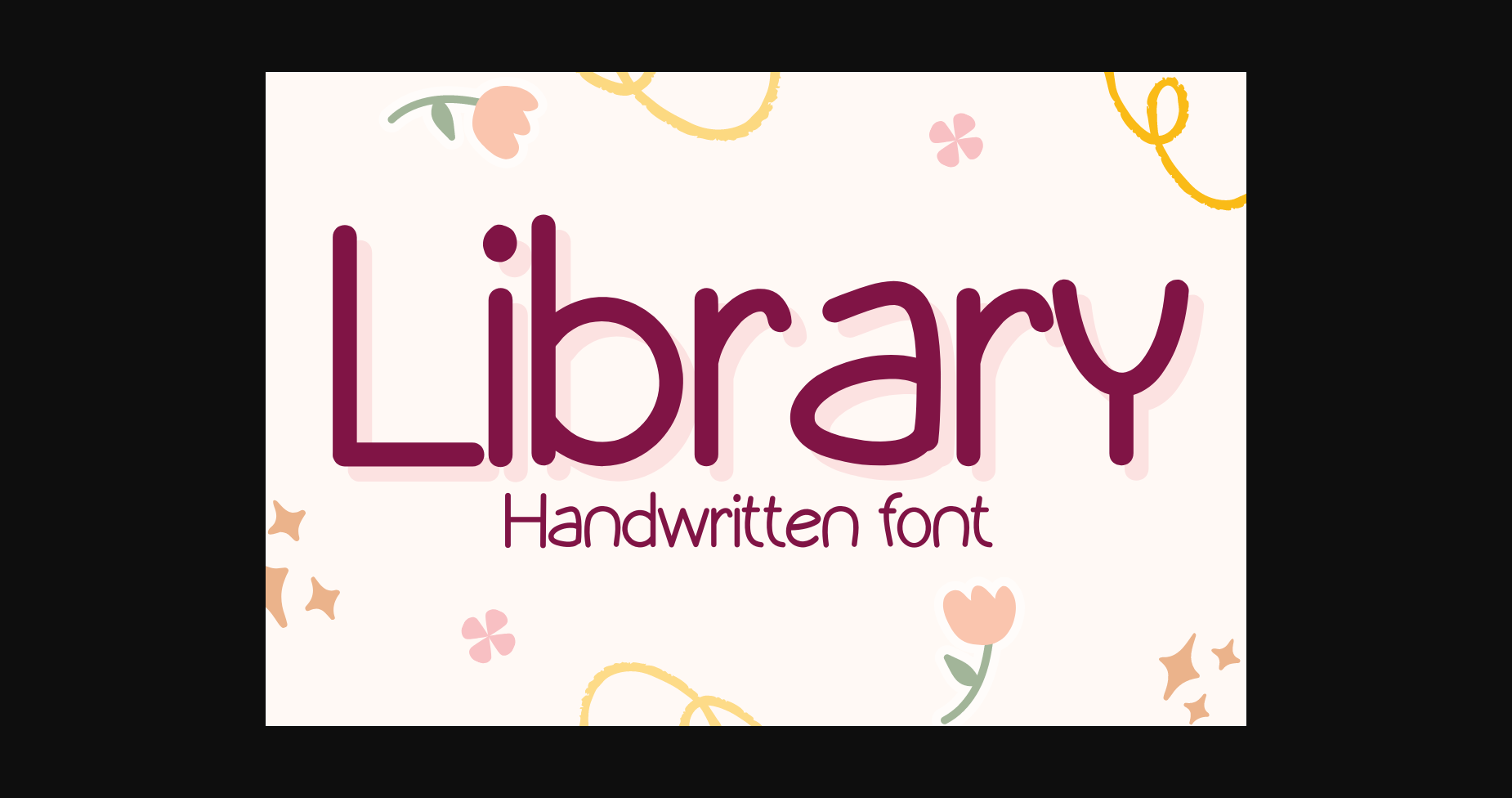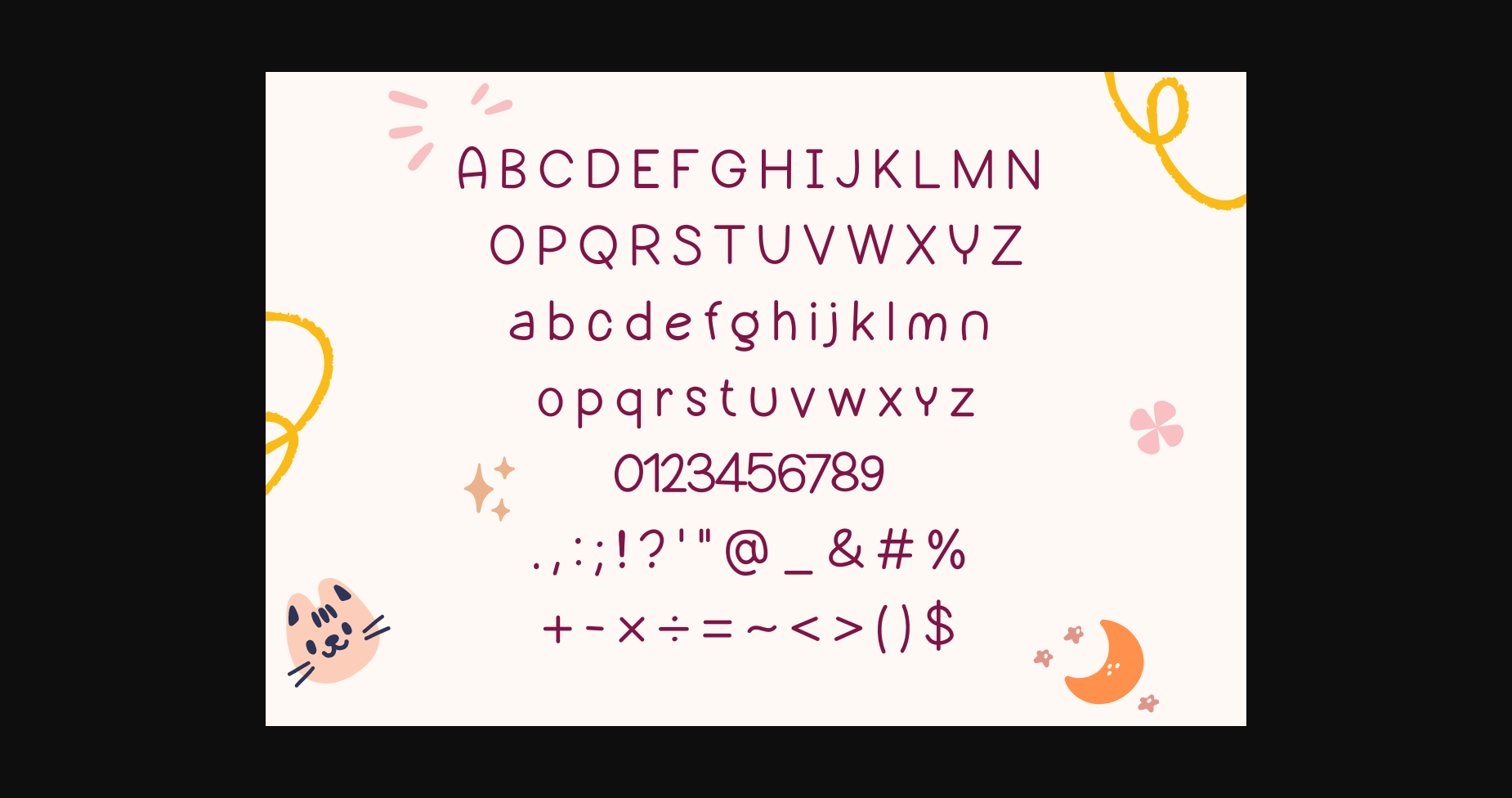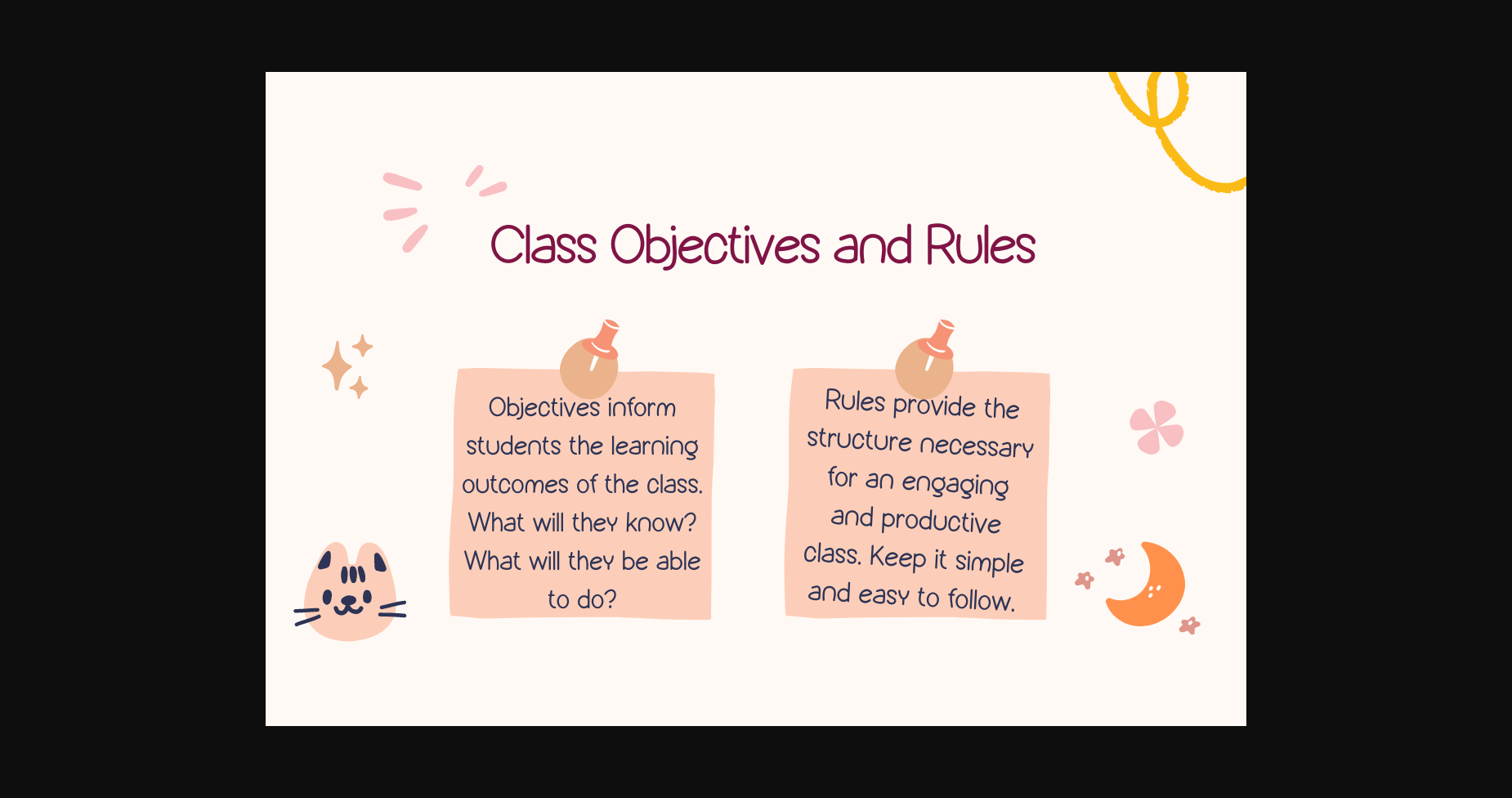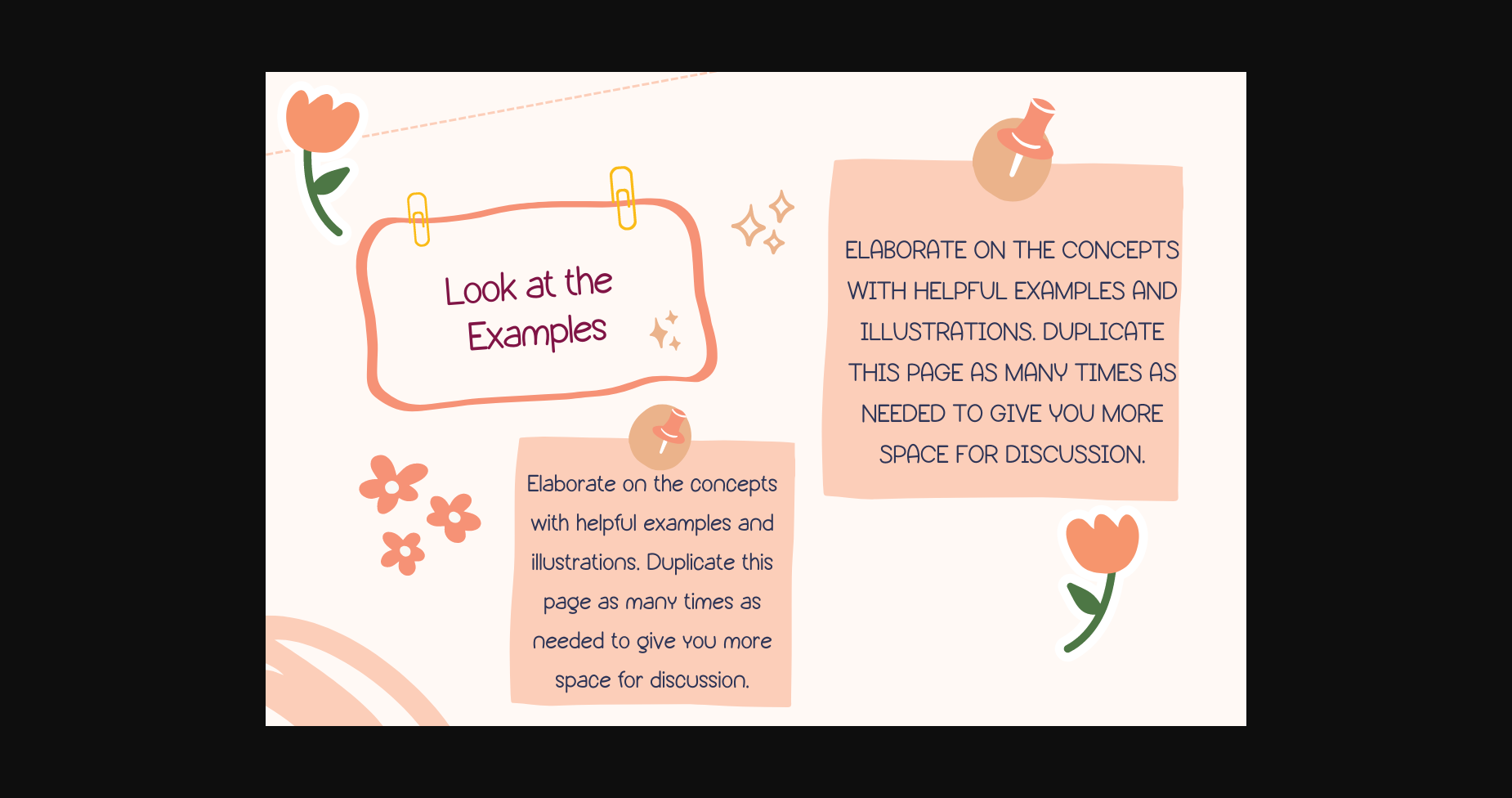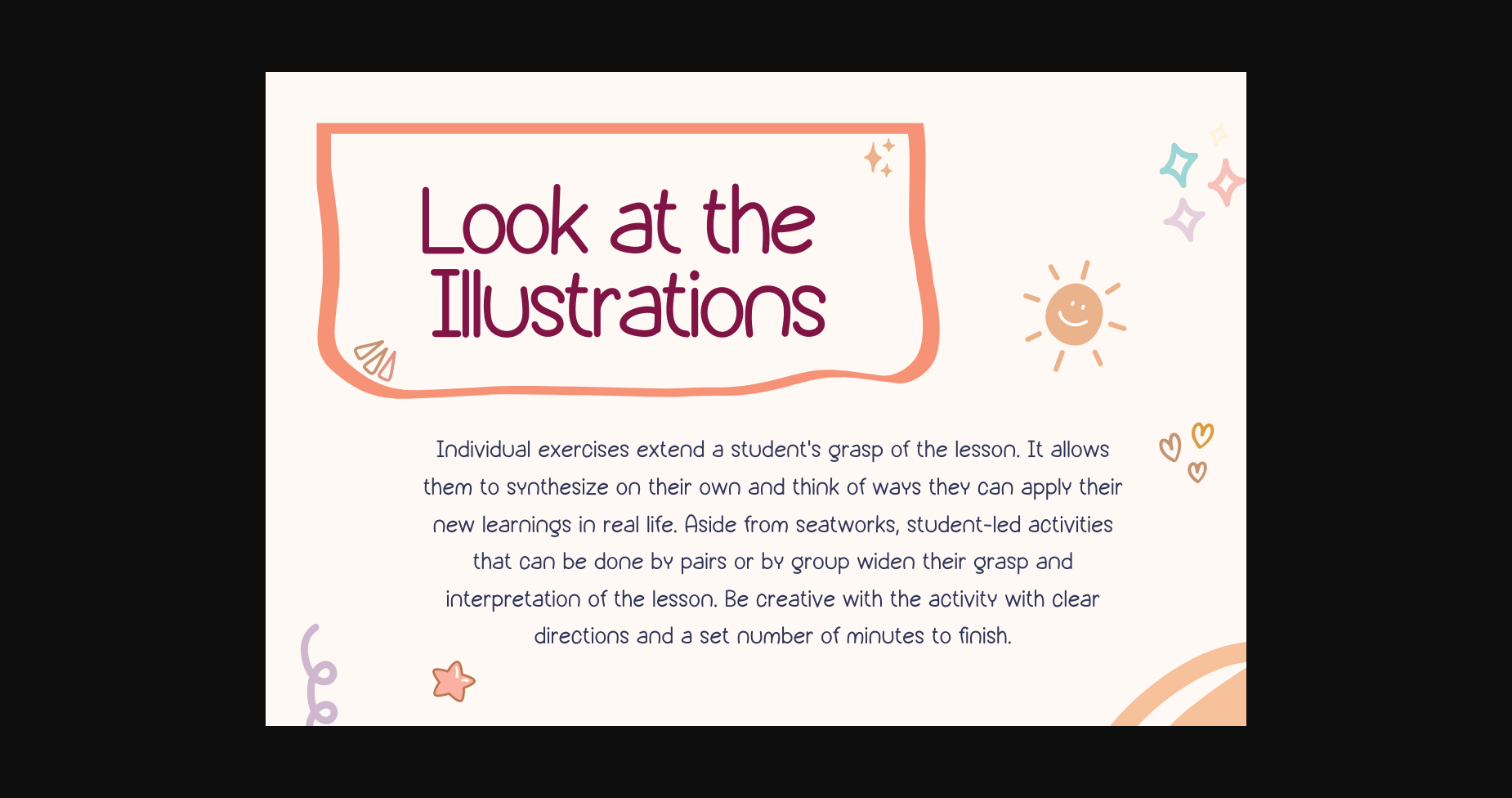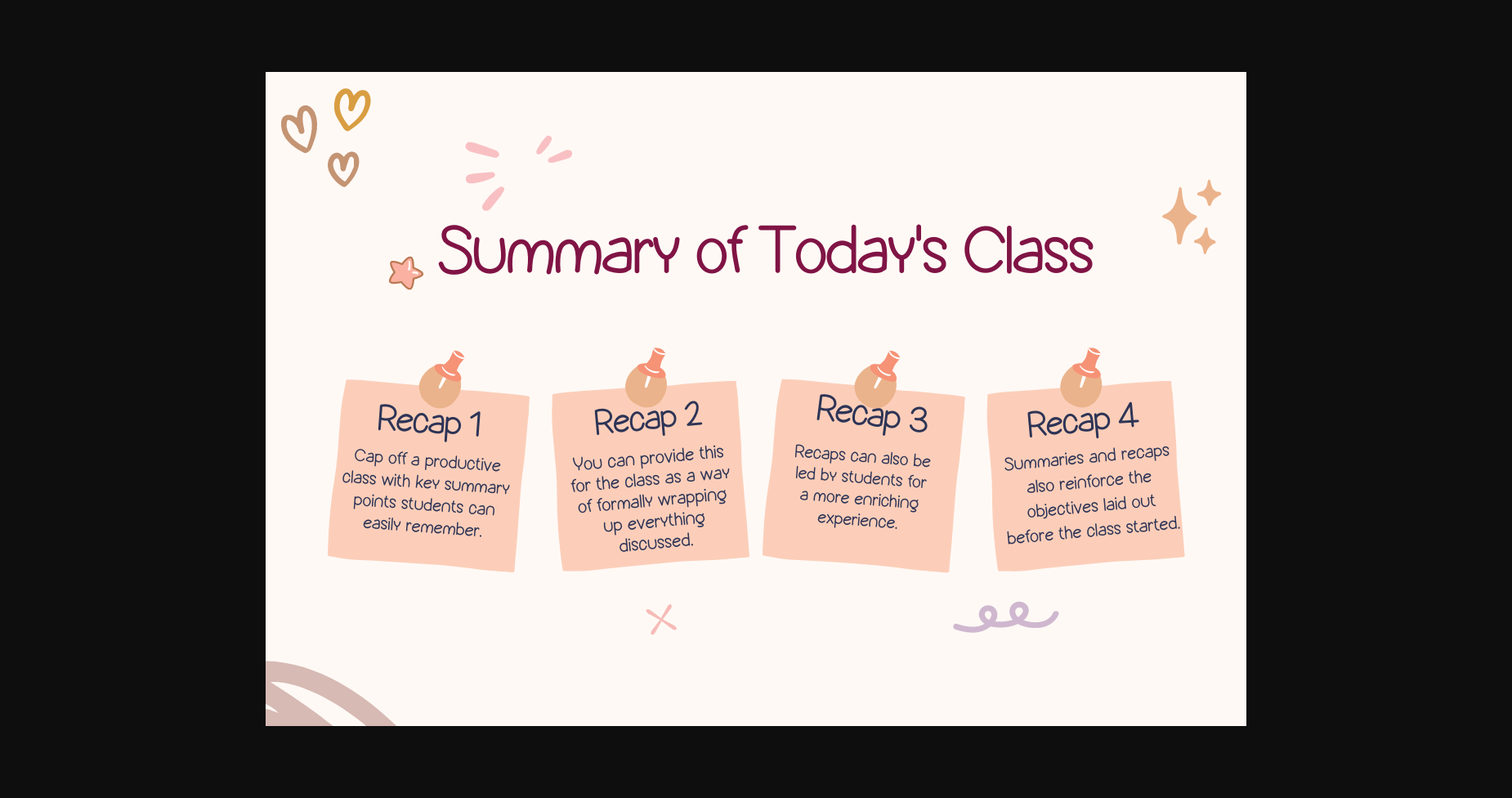
Library Font
About Library Font
Library is a cute and casual handwritten font. You can use it for taking notes, writing a diary, or making greeting cards. However, you can still use it for other designs, such as banners, content, mugs, cards, shirts, stationery, social media posts, and more!